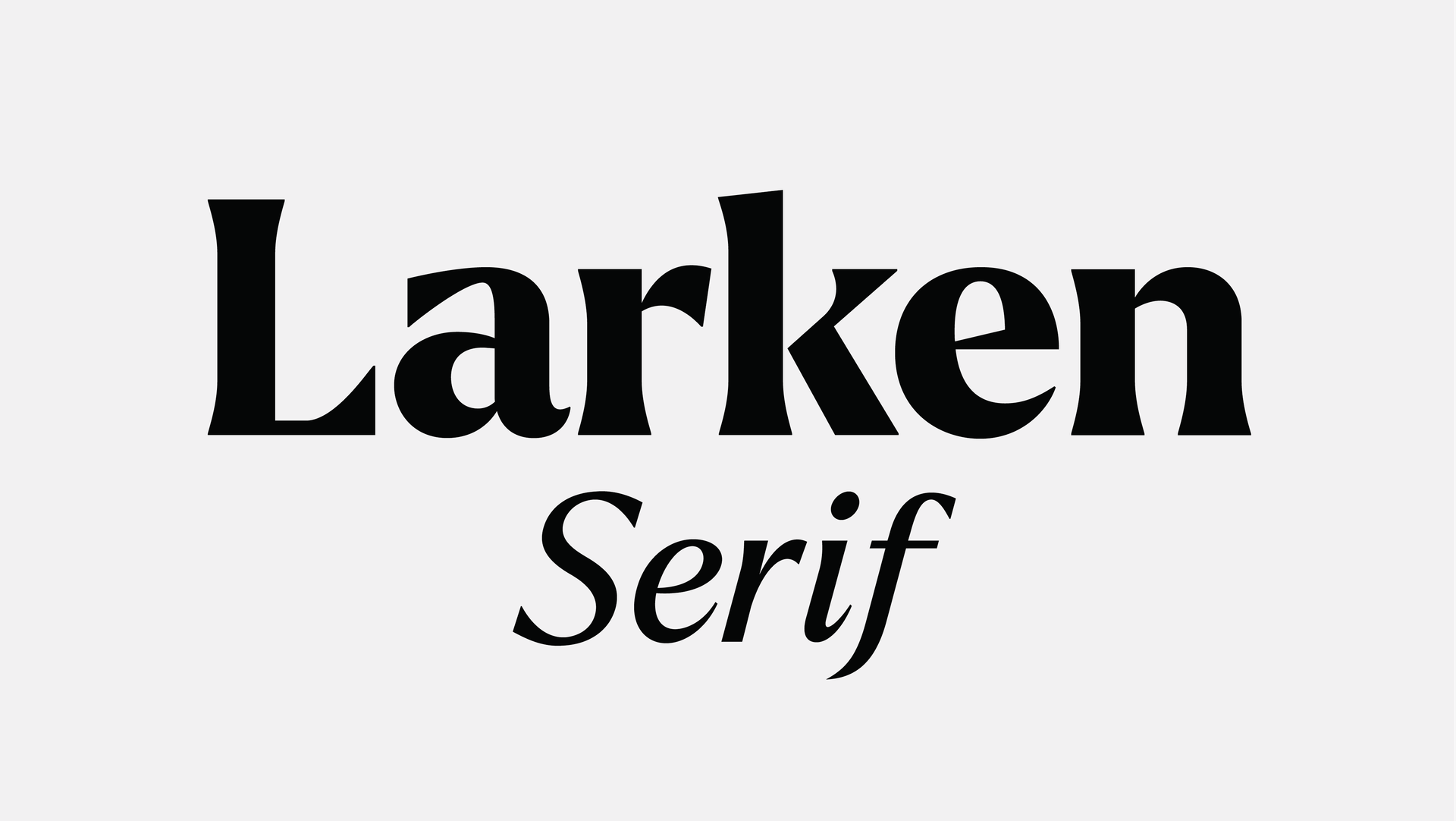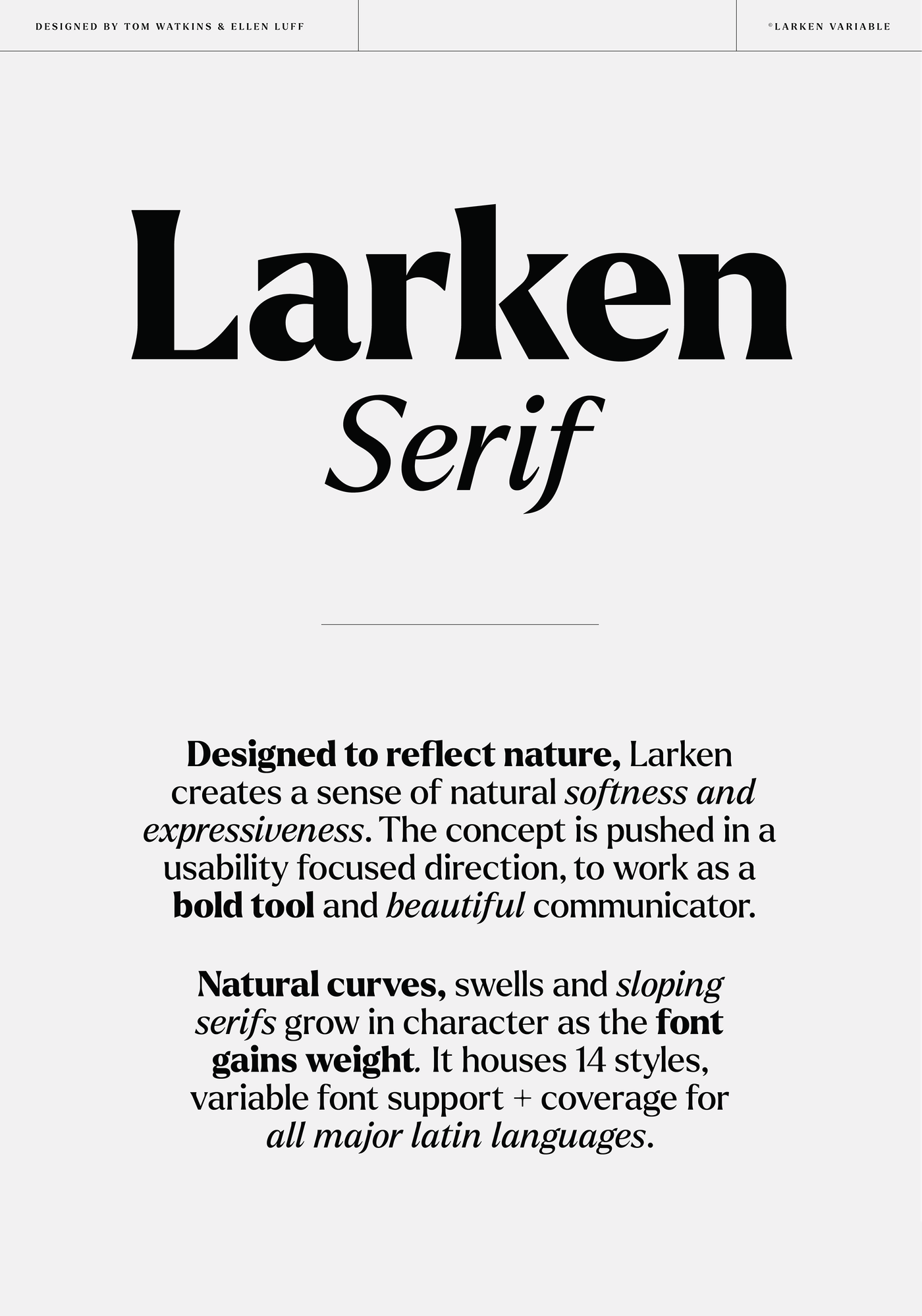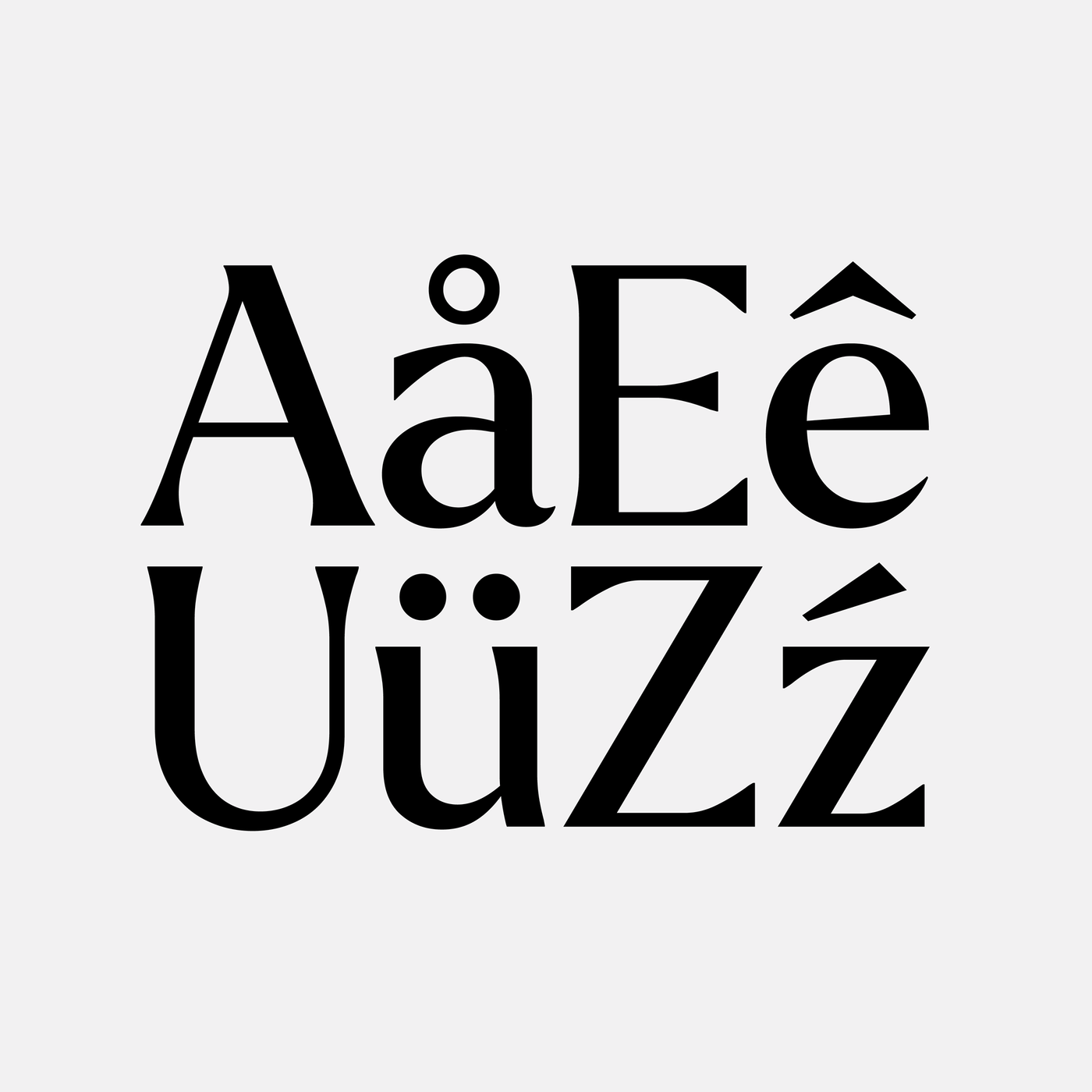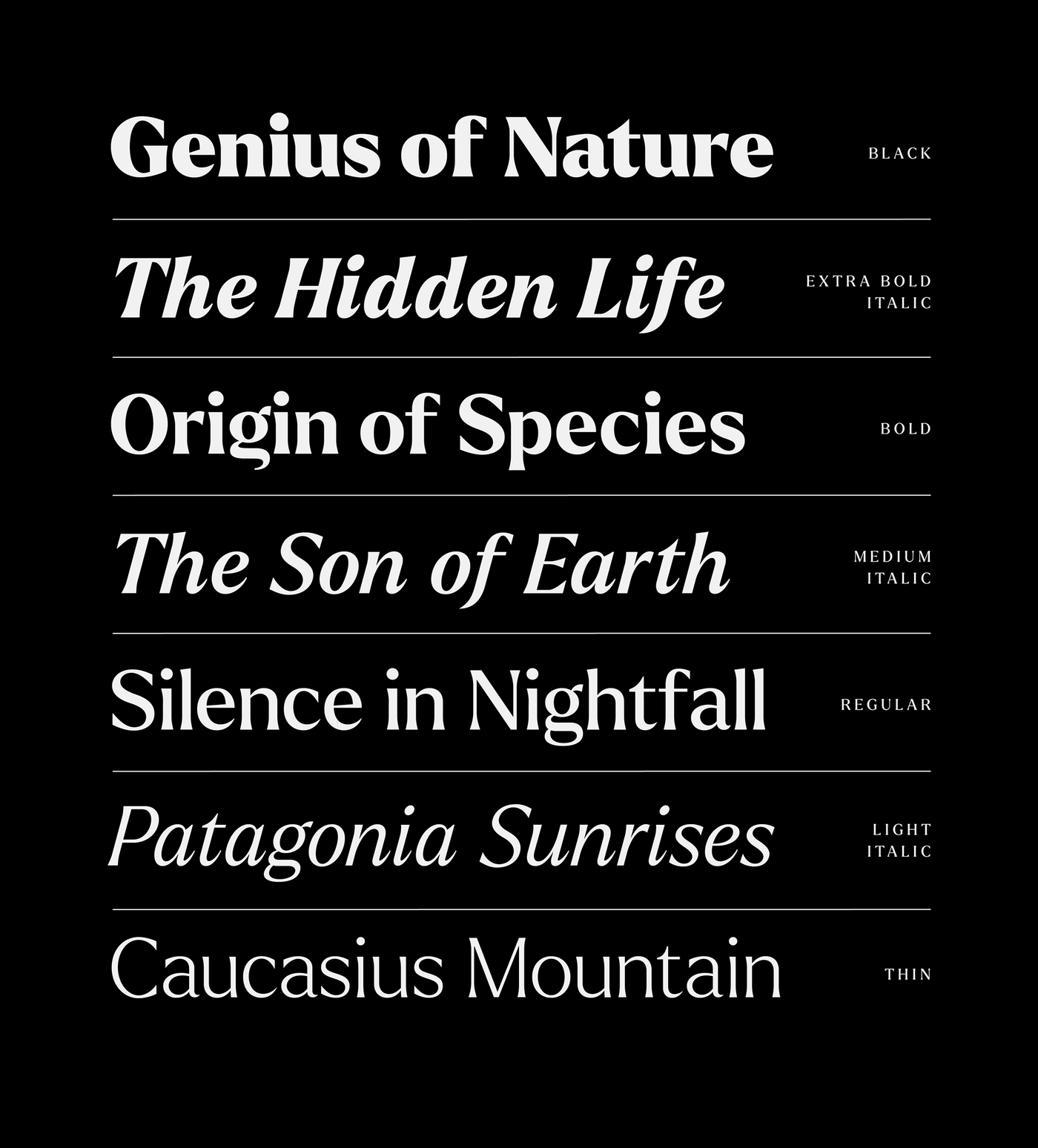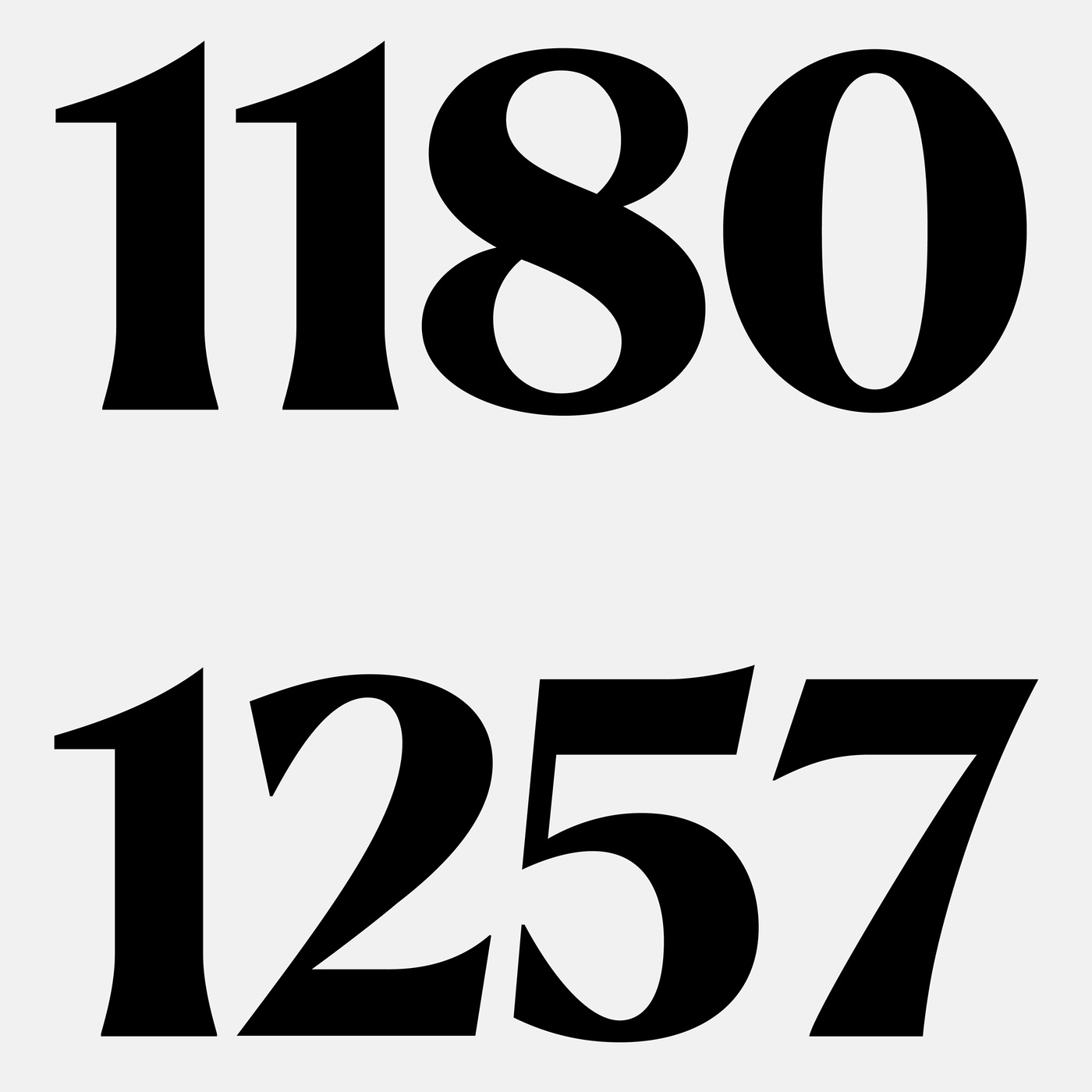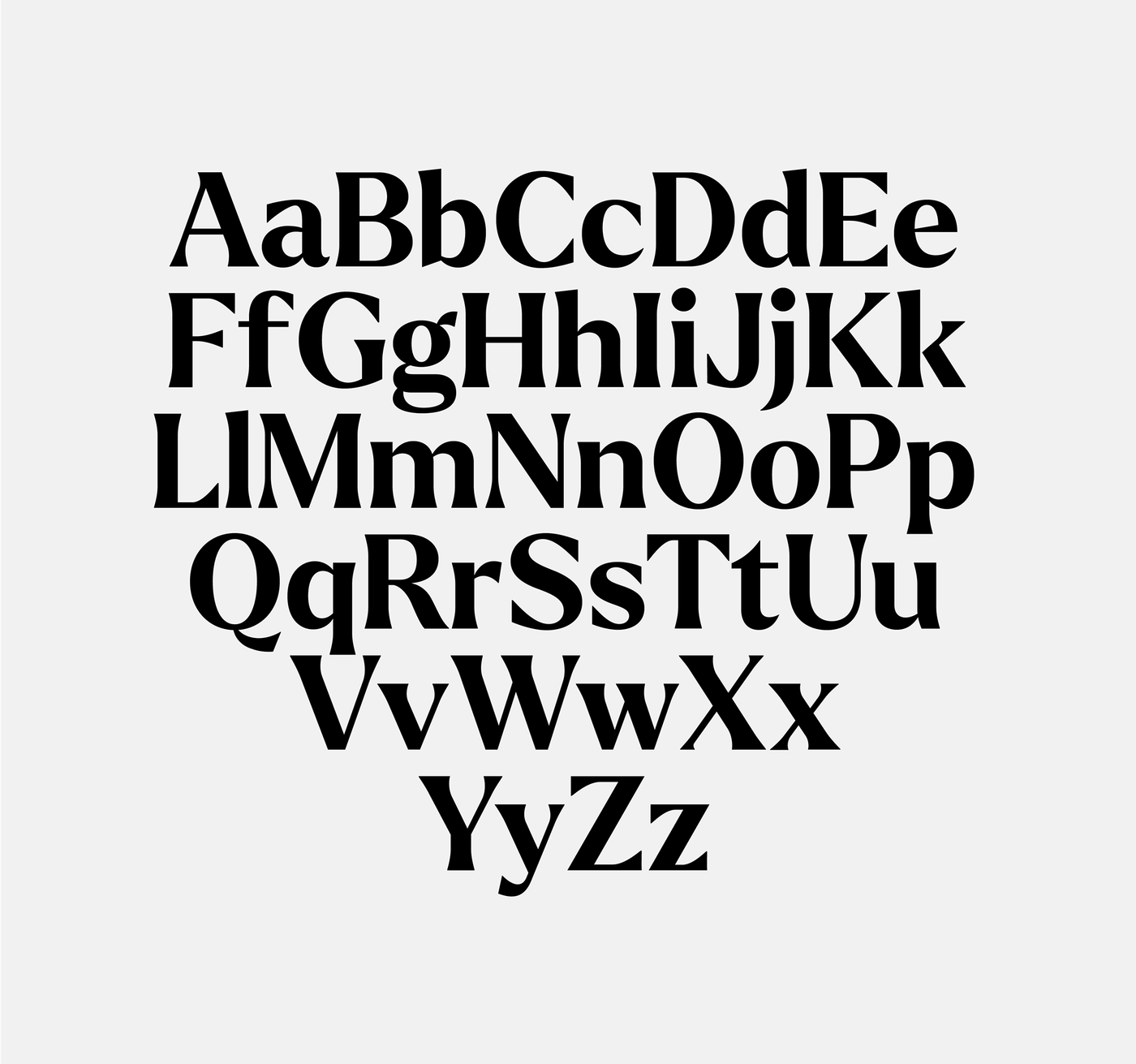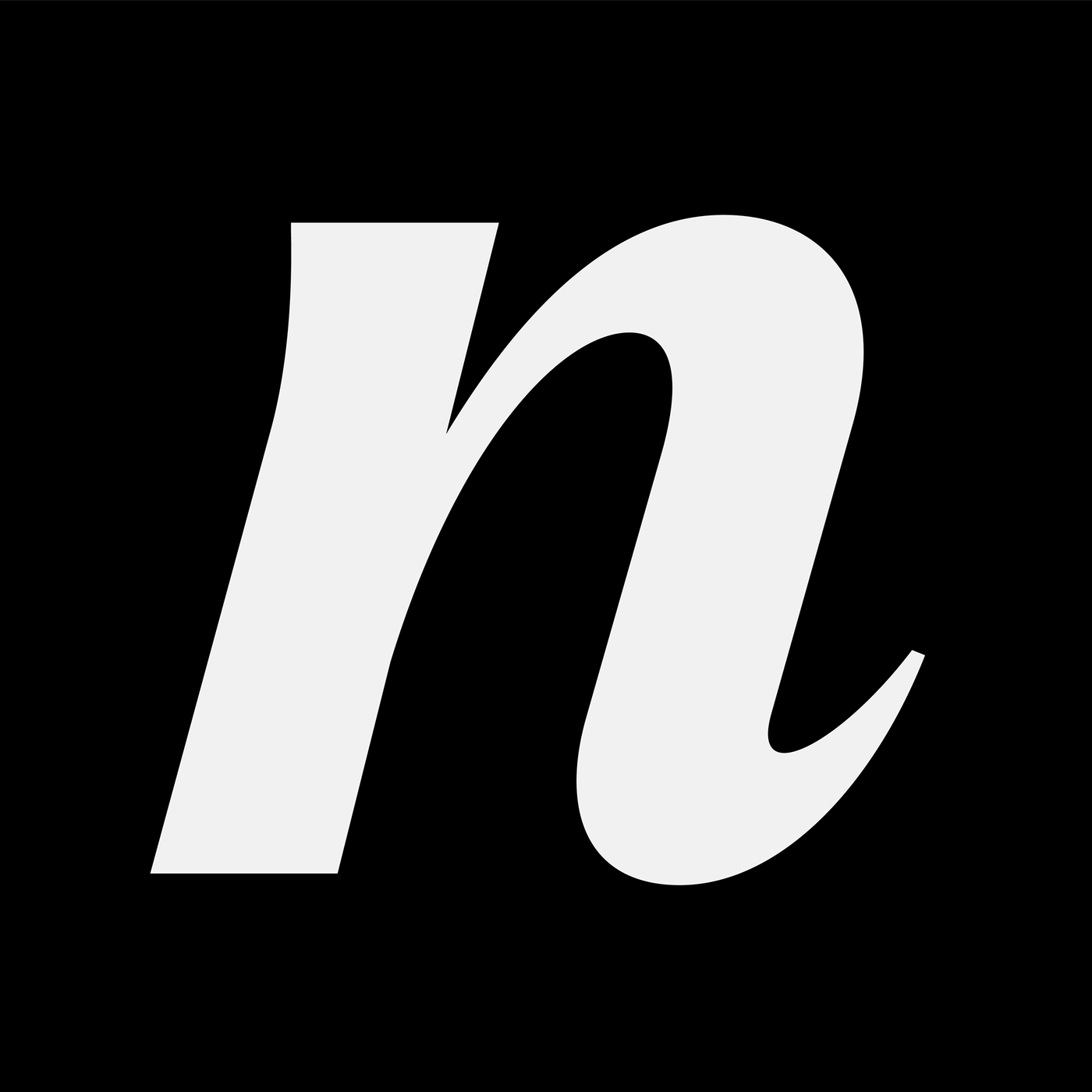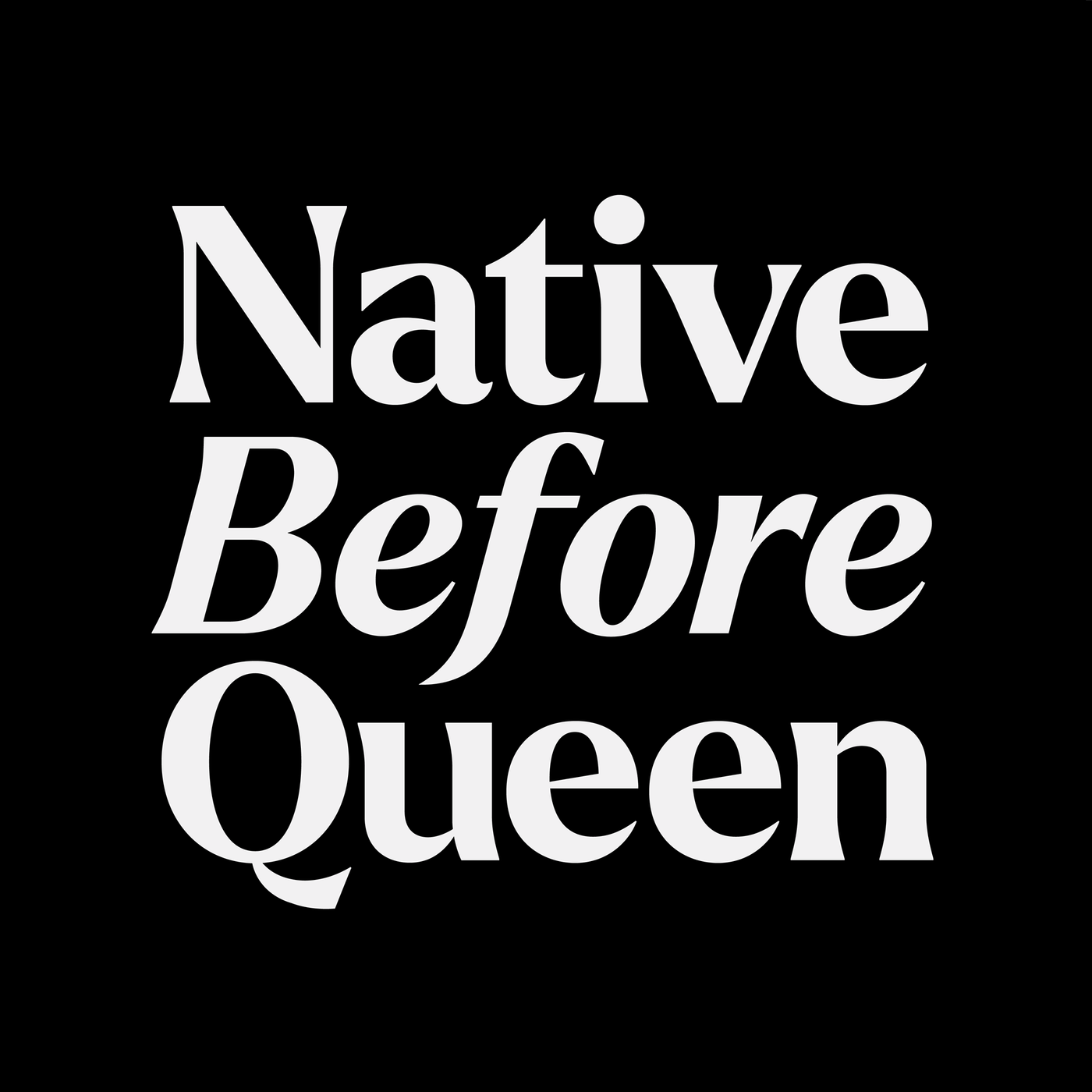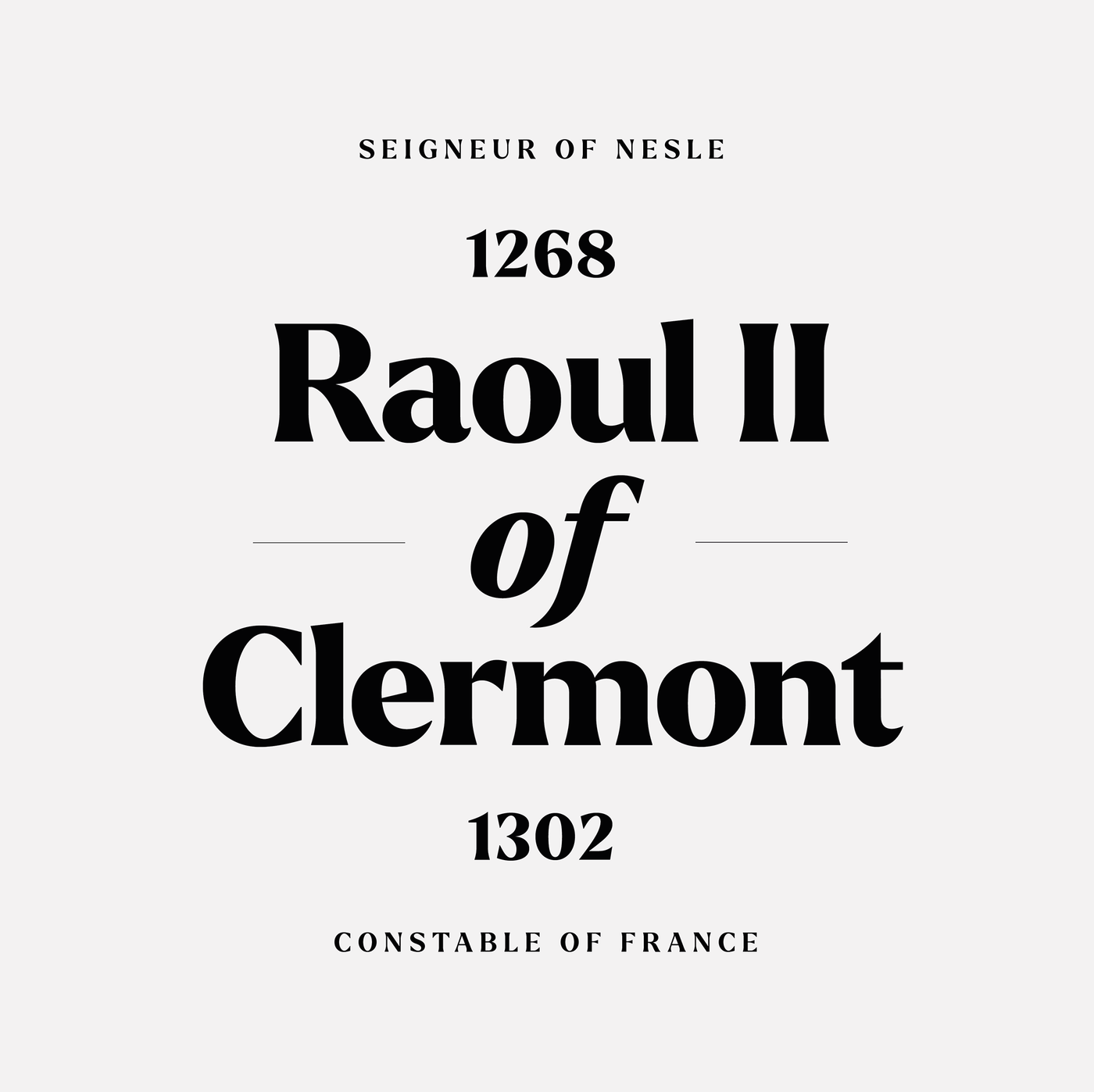
Larken, from Ellen Luff Type Foundry, reflects the softness and expressiveness of nature, blending organic curves with usability to serve as both a bold tool and a beautiful communicator. Its variable design spans seven weights, true italics, and major Latin-based languages, delivering fluid versatility for modern needs. Its striking letterforms shine at large sizes, while at smaller sizes, it offers an even, readable texture. With weights from thin to black, Larken adapts effortlessly; its natural curves and sloping trunks gain character in heavier styles, while lighter weights maintain a warm, gentle presence.
Larken blends organic curves with bold utility — 7 weights and true italics make it perfect for expressive, versatile design from headlines to body text.